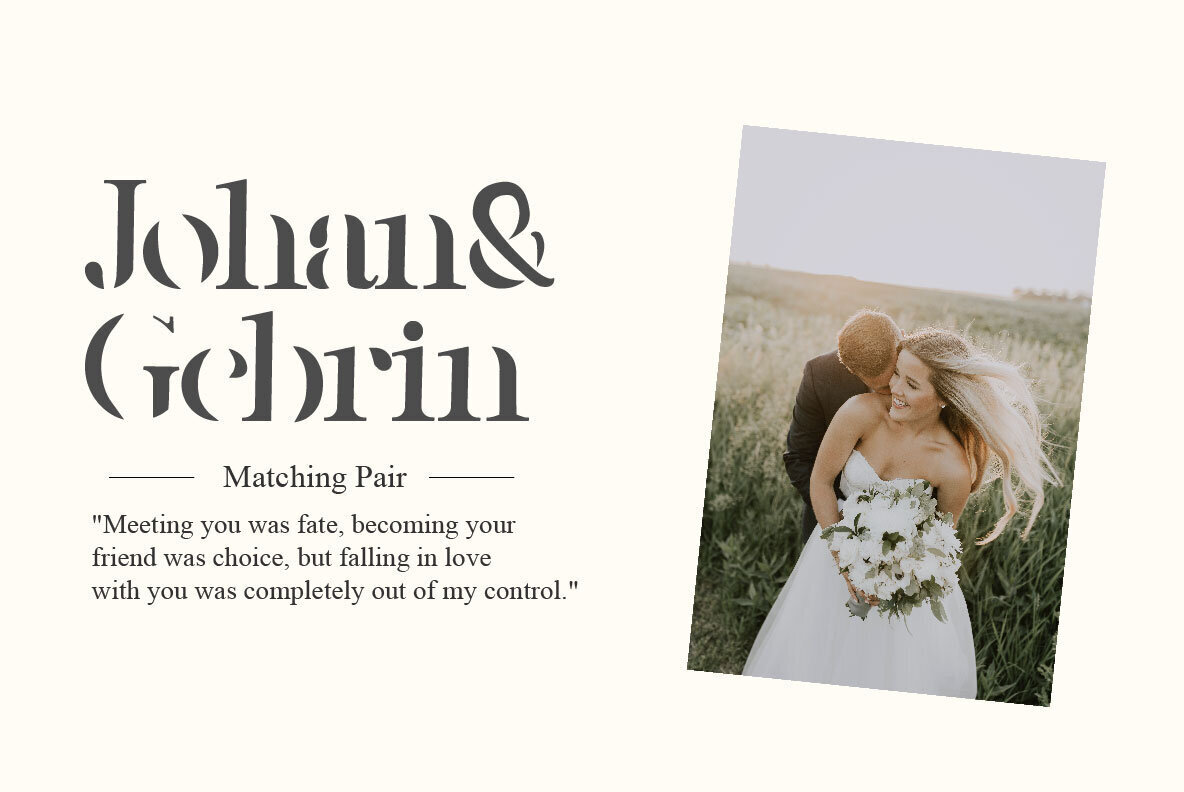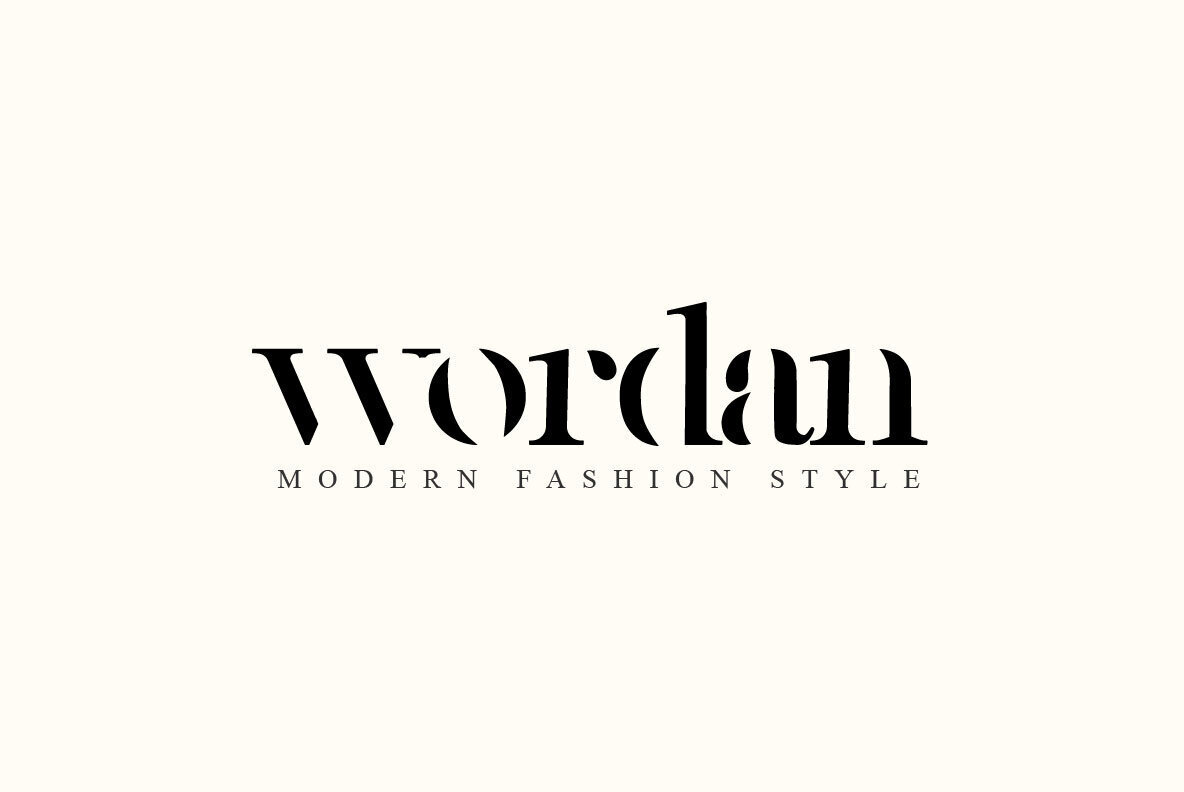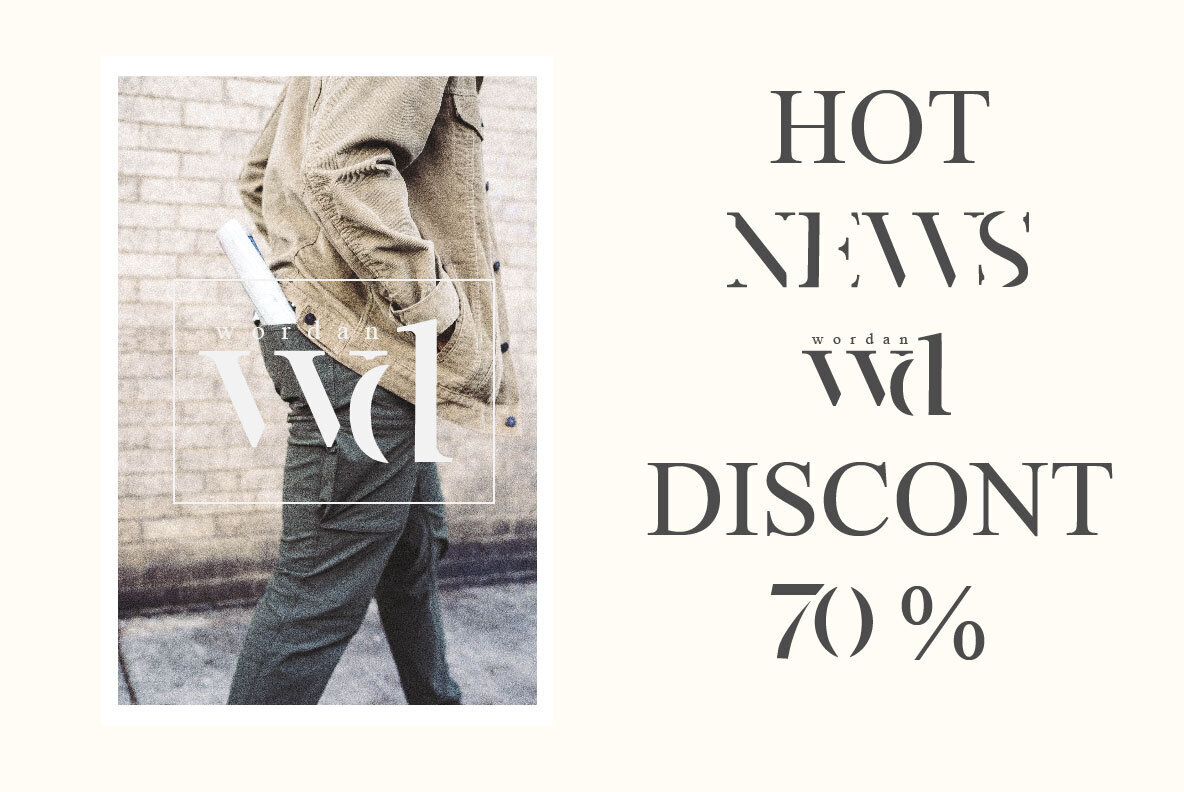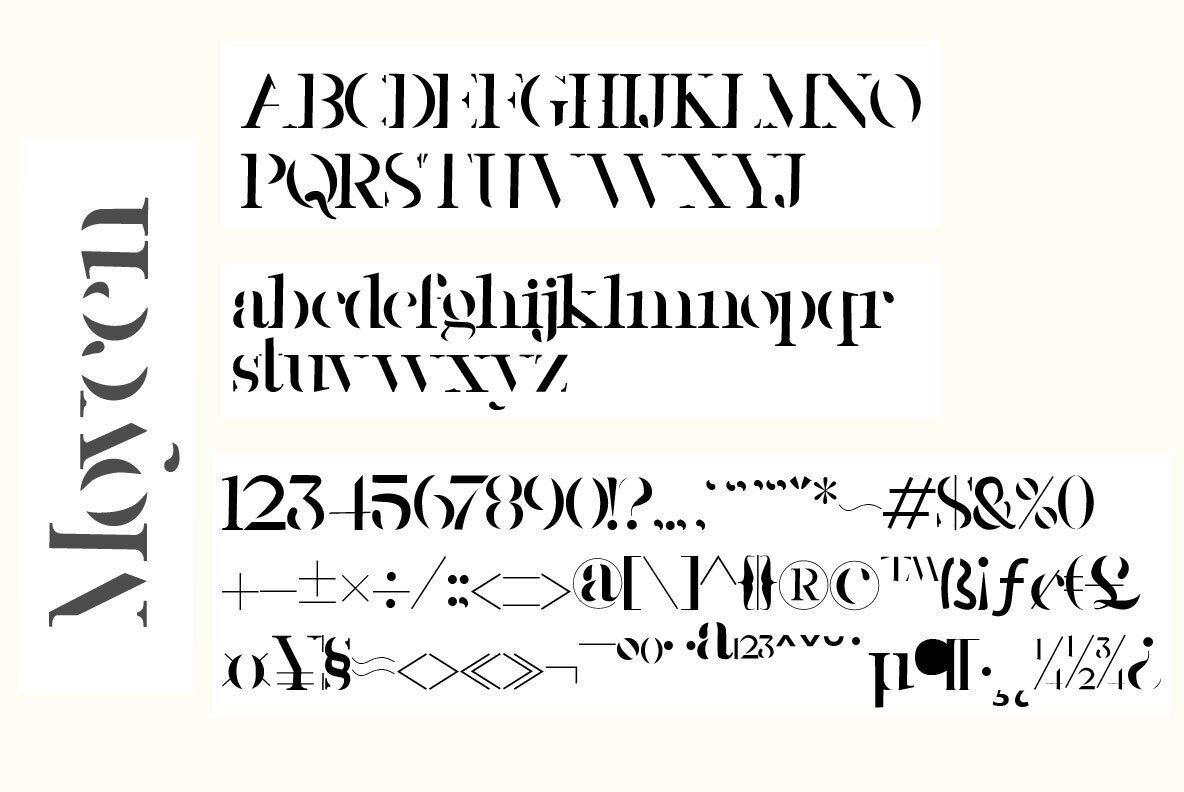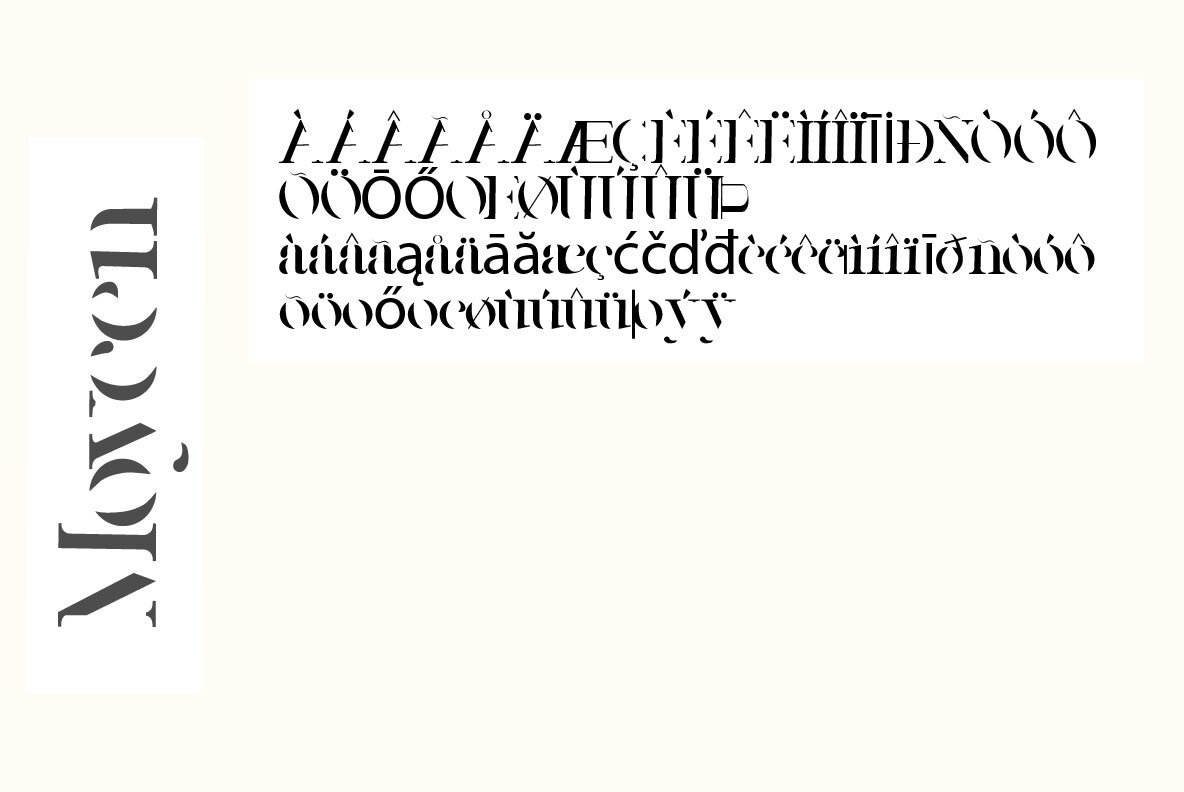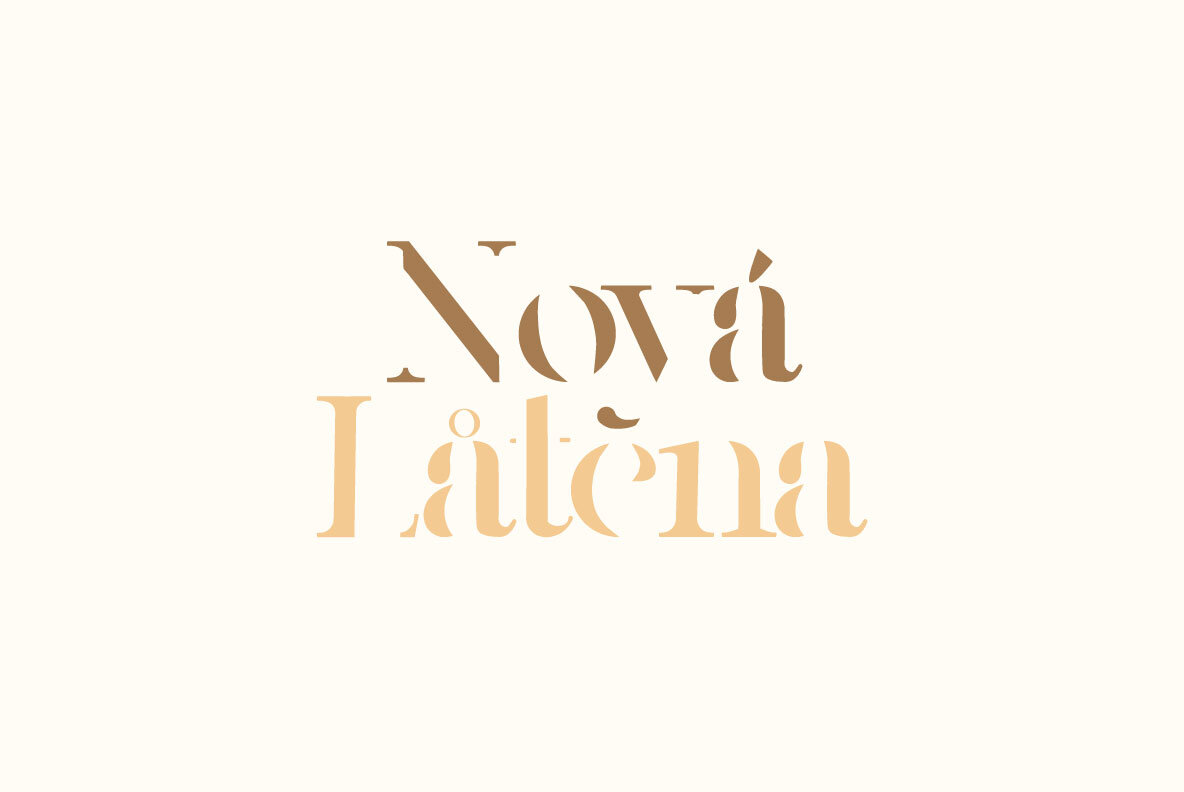
Moycen Font
Moycen
Moycen font is the perfect blend between bold, modern and feminine. It's strong yet soft, urban and high fashion. The hard lines with subtle rounded edges gives it a perfect mix of contemporary typography and classic design. Versatile is an understatement.